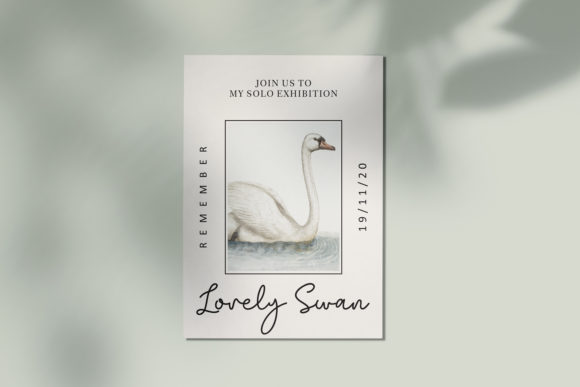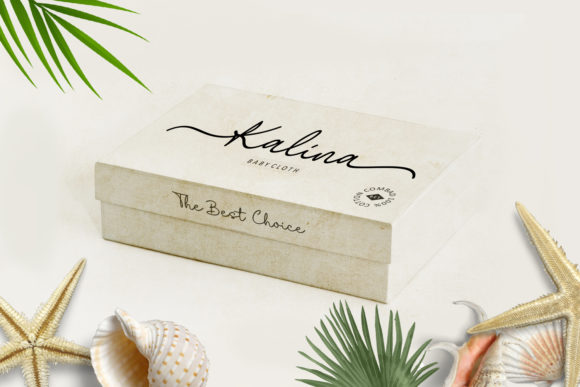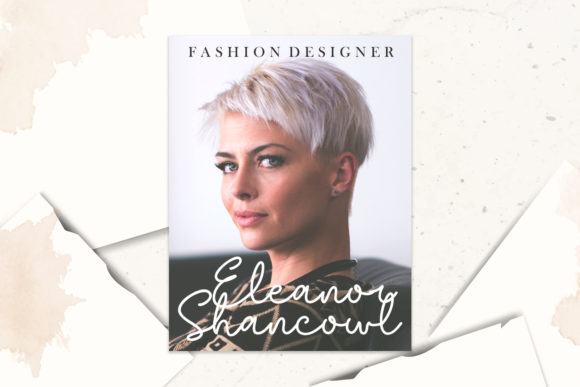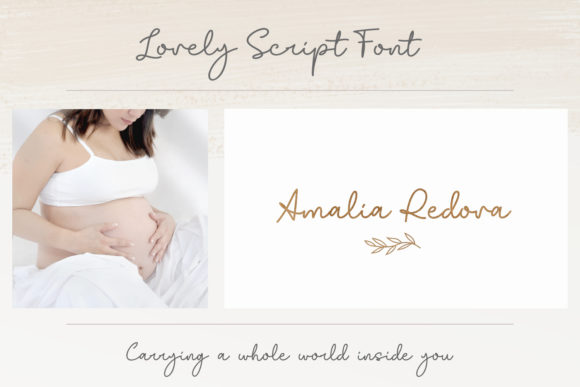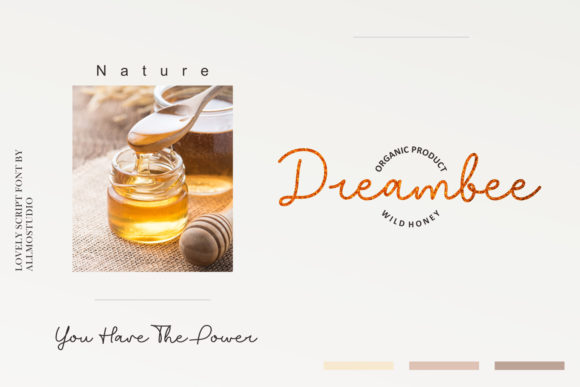
Giorello Font: Elevate Your Designs with a Touch of Elegance and Whimsy
In the world of typography, a font can make or break a design. It’s the perfect blend of form and function, aesthetics and readability. For designers and crafters looking to add a dash of sophistication and playfulness to their projects, the Giorello Font is an excellent choice. This lovely, classy, and fun handwritten font is designed to inspire and transform any design idea into a standout masterpiece.
The Charm of Giorello
Giorello is a light and sophisticated handwritten font that exudes a delightful feel. Its unique charm lies in its ability to strike the perfect balance between elegance and whimsy. The font’s light strokes and airy texture give it a carefree and effortless look, making it ideal for designs that require a touch of sophistication without being too formal.
Key Features of Giorello Font
- Handwritten with love: Giorello is a carefully crafted handwritten font that mimics the natural flow of handwritten script. Its imperfections and quirks add to its charm, making it a one-of-a-kind addition to any design.
- Light and airy: The font’s light strokes and delicate texture give it a sense of elegance and refinement. It’s perfect for designs that require a touch of sophistication without being too overpowering.
- Unique character set: Giorello comes with a unique character set that includes a range of letters, numbers, and punctuation marks. Its extensive character set ensures that you can create beautiful designs with ease.
- Easy to read: Despite its elegant and whimsical feel, Giorello is remarkably easy to read. Its clear and legible strokes make it perfect for body text, headings, and titles.
Uses of Giorello Font
Giorello is a versatile font that can be used in a variety of design projects. Here are some ideas to get you started:
- Wedding designs: Add a touch of romance and elegance to your wedding designs with Giorello. Its whimsical feel makes it perfect for wedding invitations, save-the-date cards, and ceremony programs.
- Branding and packaging: Giorello’s unique charm makes it an excellent choice for branding and packaging designs. Use it to create eye-catching labels, business cards, and brochures.
- Social media graphics: Elevate your social media graphics with Giorello’s elegant and playful feel. Use it to create stunning Facebook posts, Instagram stories, and Twitter headers.
- Stationery and crafts: Giorello is perfect for crafters and stationery enthusiasts. Use it to create beautiful journals, planners, and greeting cards.
Tips for Using Giorello Font
To get the most out of Giorello, here are some tips to keep in mind:
- Pair it with contrasting fonts: Combine Giorello with bold and contrasting fonts to create visual interest and hierarchy.
- Experiment with colors: Giorello looks stunning in a range of colors. Experiment with different hues and shades to find the perfect match for your design.
- Play with textures: Add texture and depth to your design by combining Giorello with different textures and patterns.
In conclusion, Giorello Font is a beautiful and versatile handwritten font that’s perfect for designers and crafters looking to add a touch of elegance and whimsy to their projects. Its unique charm, light strokes, and airy texture make it an excellent choice for a range of design applications. With its extensive character set, ease of readability, and flexibility, Giorello is sure to inspire and transform your design ideas into standout masterpieces.